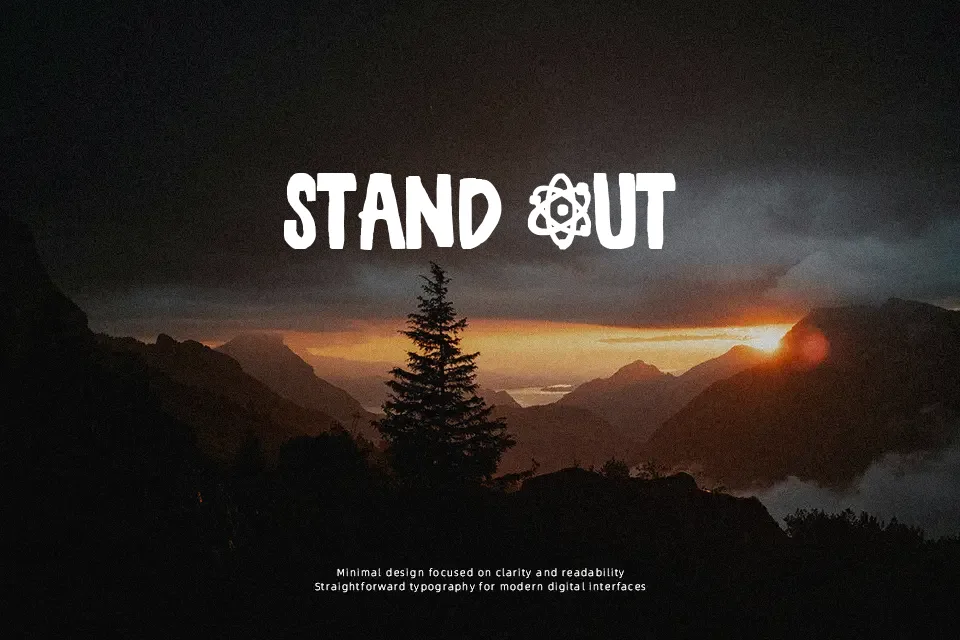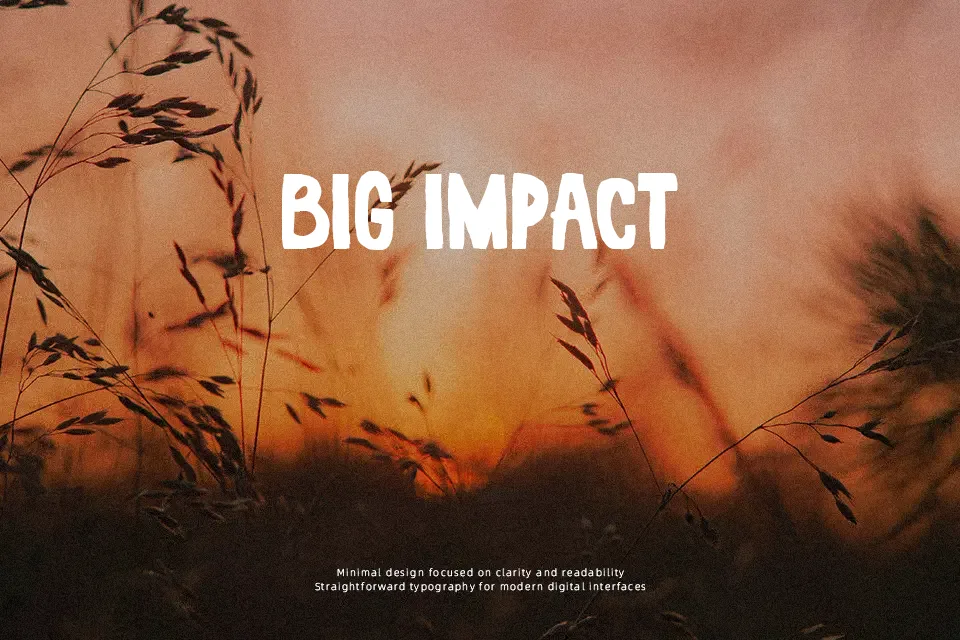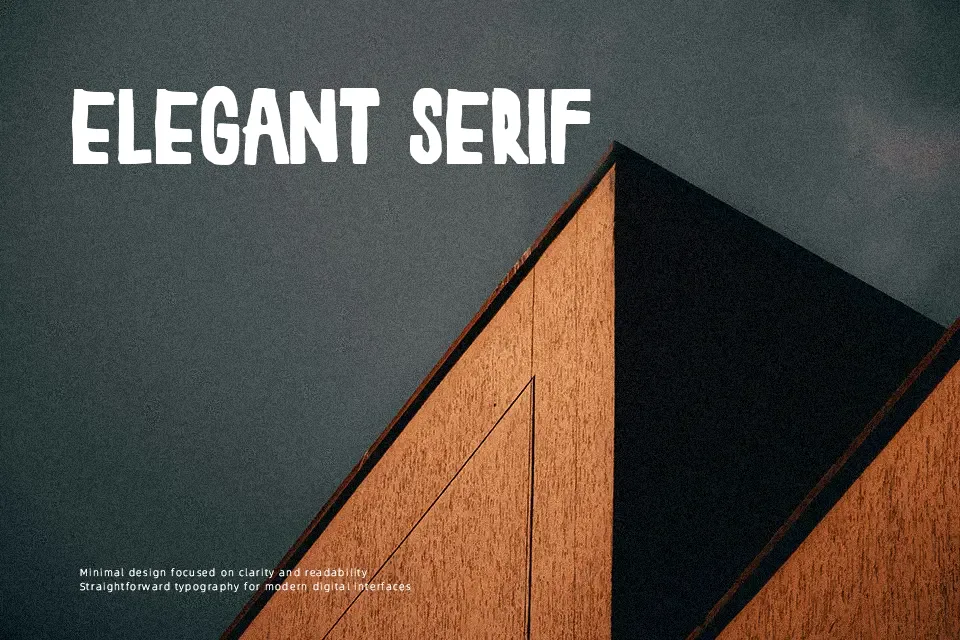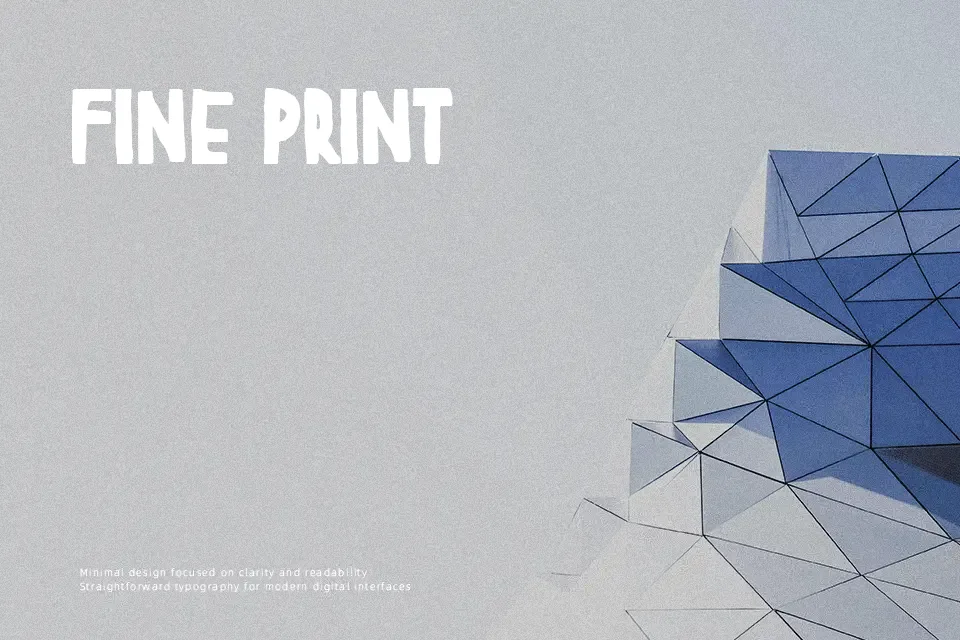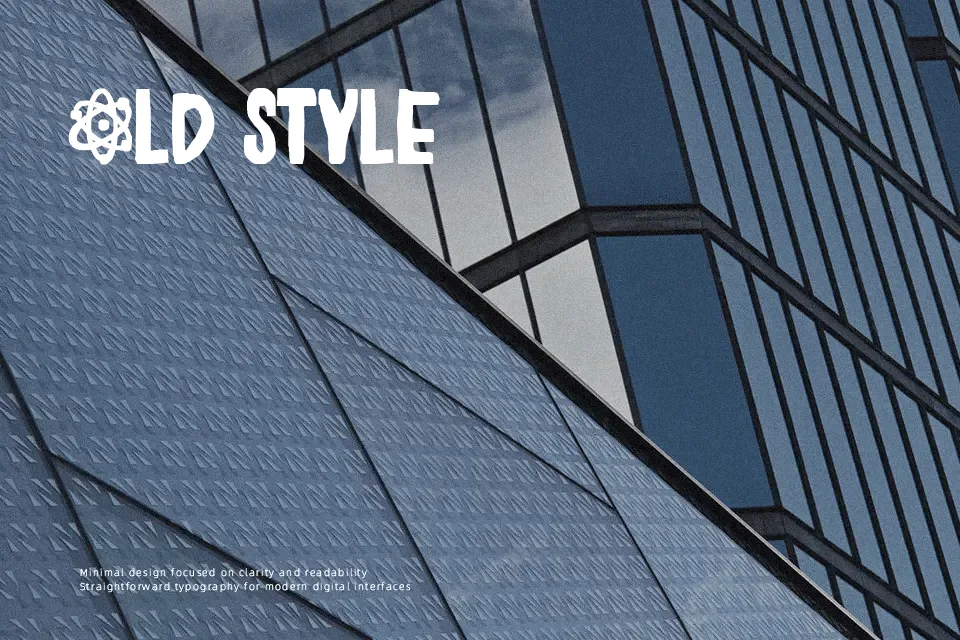
Atomic Love Font
Thick, blocky letterforms with a hand-inked quality — that’s the first thing you notice about Atomic Love. The strokes carry an uneven weight typical of brush-heavy comic lettering, and the overall structure leans all-caps with tight, punchy spacing that commands attention at large sizes. It reads less like a typeface and more like something hand-chalked on a blackboard with attitude. Well-suited for Valentine’s Day campaign headers, retro-themed merchandise tags, or bold social captions that need a personality jolt. Where it falls short: small-size rendering turns muddy, and extended body copy becomes visually exhausting fast. If you’re working on anything that requires refined legibility or a neutral tone, this one fights back. Think of it as a display-only tool — loud on purpose, confined to headlines.
Best For:- Valentine’s Day campaign headers
– Children’s brand logo treatments
– Retro-themed event posters
– Playful social media graphic titles
Not Ideal For:- Body text or multi-line reading
– Corporate identity or formal branding
– Small-size labels or fine print
– Minimalist or editorial layouts
Perfect for holiday, logo, and packaging, with a bold and cartoon style.